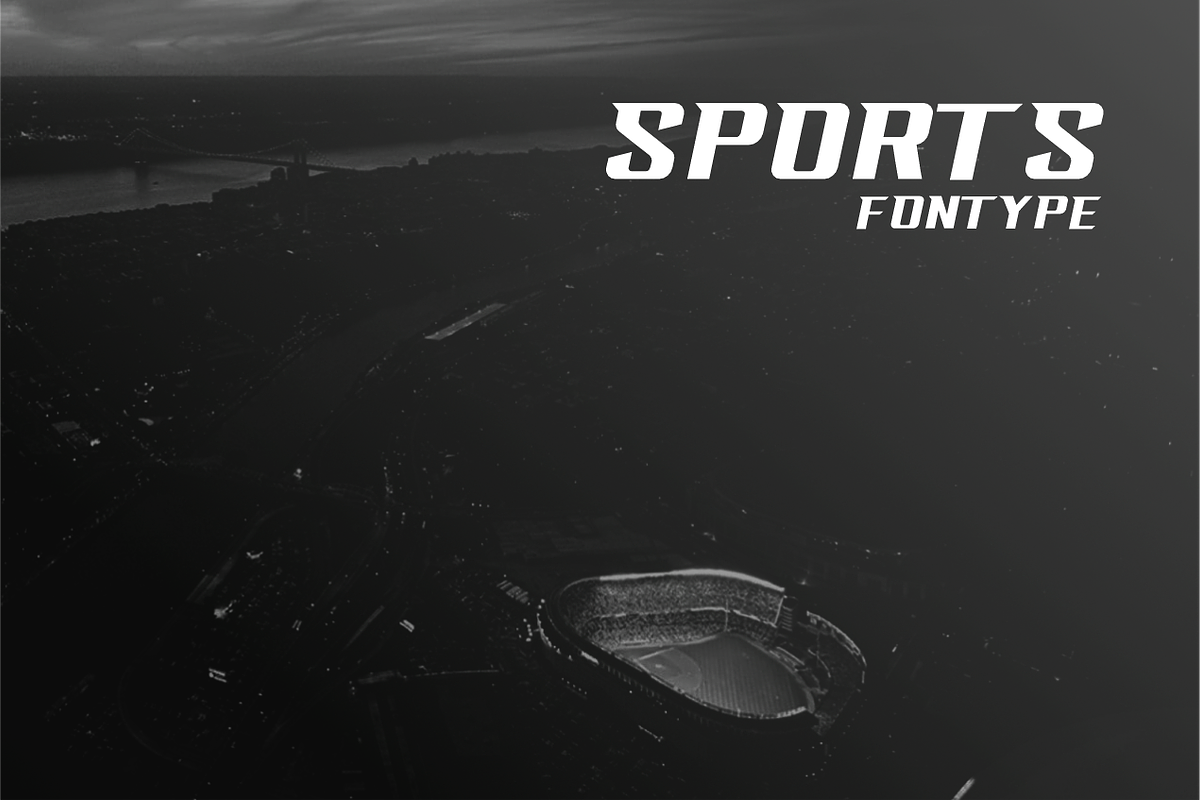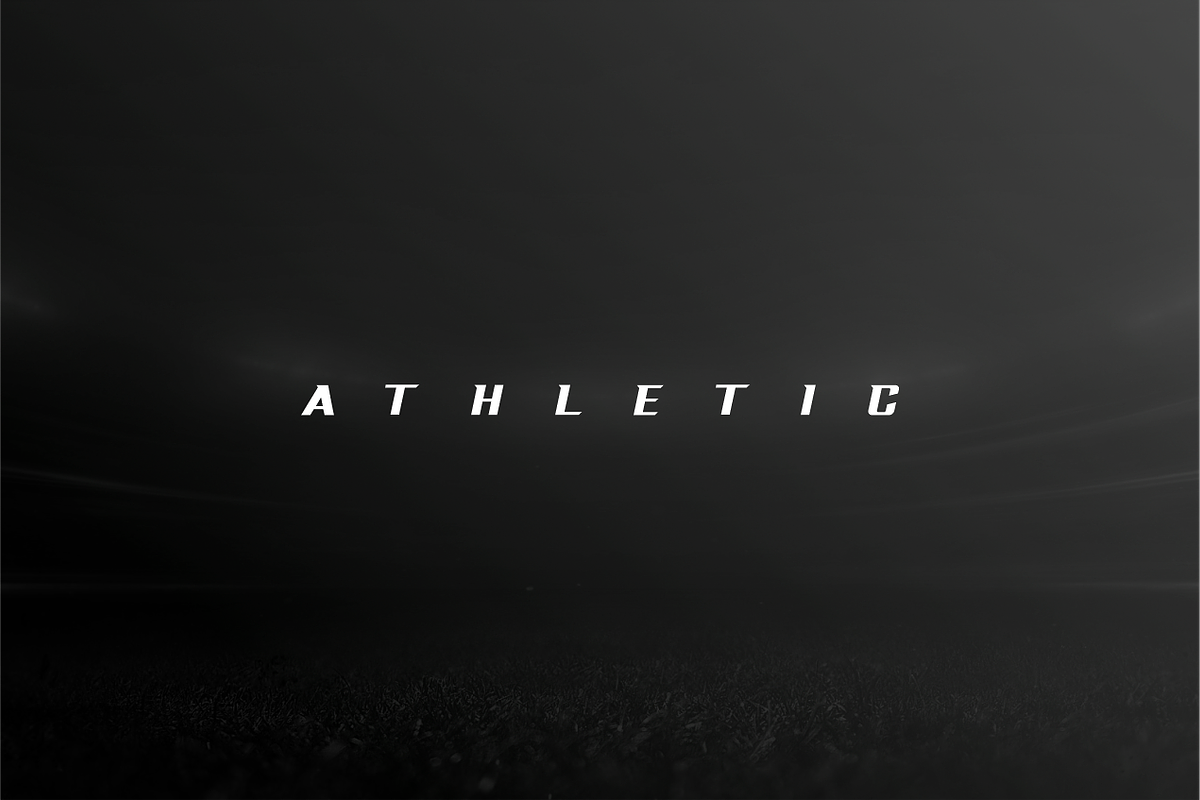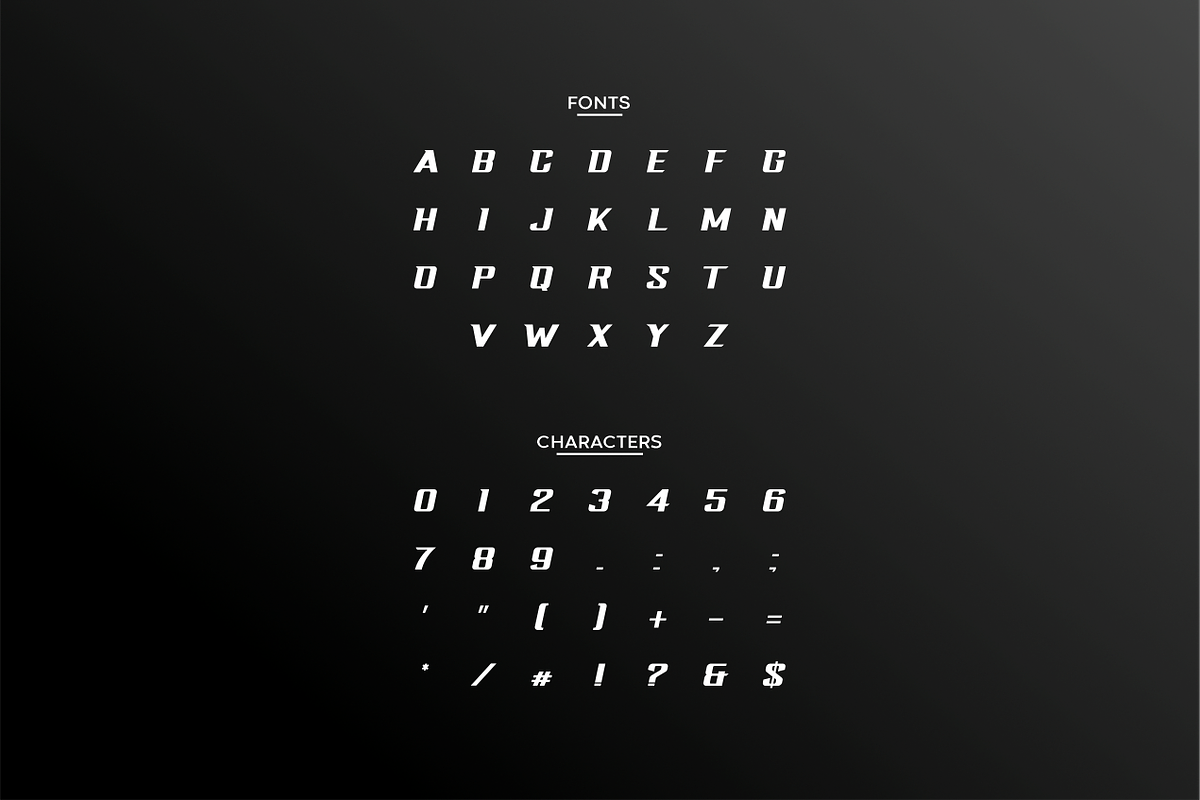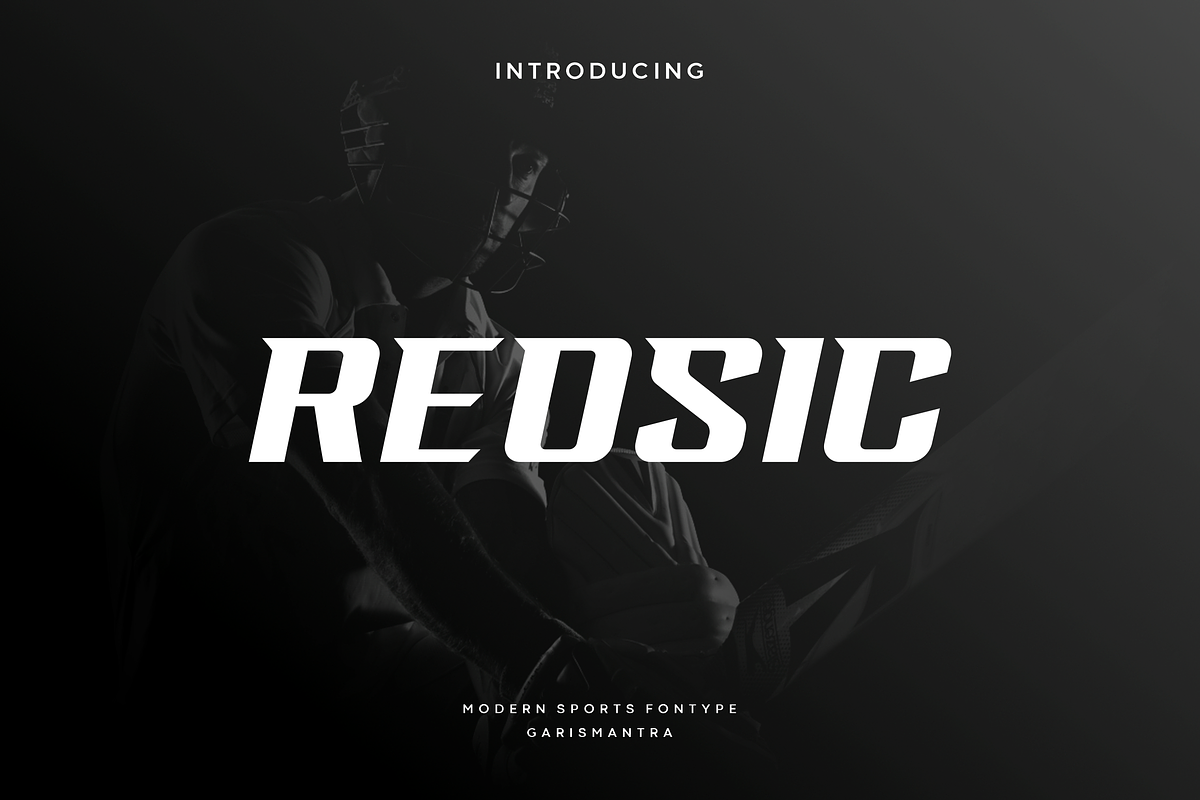
Reosic
Reosic an awesome sports font, ideal for fast car racing sports titles, running matches, cycling, automotive game logos and monograms or other modern dynamic text. Reosic compare favorably with legibility and size, creating the effect of power and speed. Designed as a fast and dynamic font, but with a slightly different font design, check it out and grab it right away.